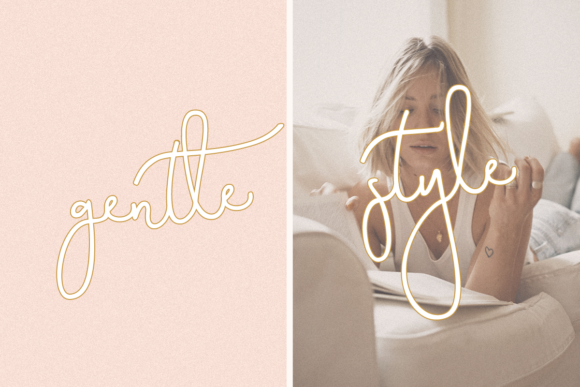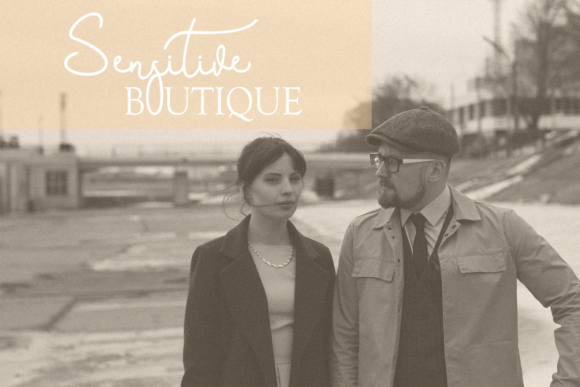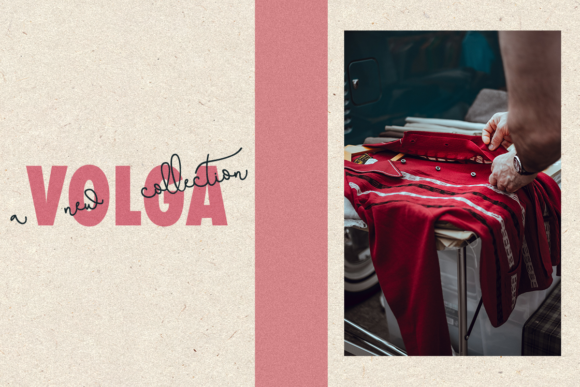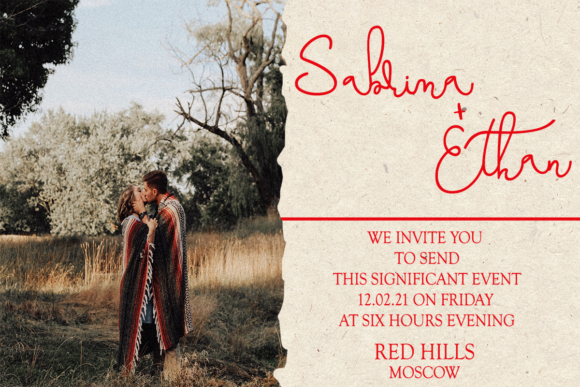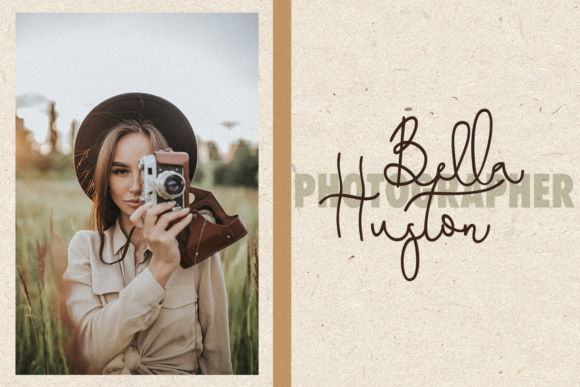
The Eternity Font: Elevate Your Designs with Flowing Elegance
I’ll never forget the design project that had me stuck in a font rut. I was working on a branding campaign for a luxury client, and no matter how hard I tried, I just couldn’t find the right font to capture the essence of their high-end products. That was until I stumbled upon the Eternity font – a game-changing, handwritten font that instantly elevated my designs to new heights. In this article, I’ll share my experience with Eternity, its features, and how you can make the most of it in your own designs.
An Honest Review of Eternity Font
What I Love About Eternity Font
- ✨ Flowing and stylish: Eternity’s handwritten script is smooth, elegant, and perfect for designs that require a touch of sophistication.
- ✅ Versatile: Whether you’re working on a luxury brand, a creative project, or a personal craft, Eternity adapts seamlessly to various themes and styles.
- 💫 Unique character: The font’s distinct personality shines through in its subtle imperfections and flowing connections, making it stand out from more generic fonts.
While Eternity is an exceptional font, there are a few minor considerations to keep in mind:
- ⚠️ Legibility at small sizes: Like many script fonts, Eternity can become tricky to read at very small sizes. It’s best used at larger sizes or for headlines and titles.
- 🤔 Overuse of swashes: While Eternity’s swashes and stylistic alternates are beautiful, overusing them can make the text look cluttered. Balance is key.
The Story Behind Eternity Font
Eternity font was designed with the intention of capturing the essence of timeless elegance. Inspired by classic calligraphy and the flowing scripts of the past, the designer aimed to create a font that feels both luxurious and personal. The result is a versatile font that can add a touch of sophistication to any project.
Q: What makes Eternity font unique?
A: Eternity’s uniqueness lies in its flowing, elegant script and the subtle imperfections that give it a personal, handwritten feel.
Q: Is Eternity suitable for body text?
A: While Eternity is stunning for headlines and titles, it’s generally recommended to use a more legible font for body text. However, for short paragraphs or creative projects, it can work beautifully.